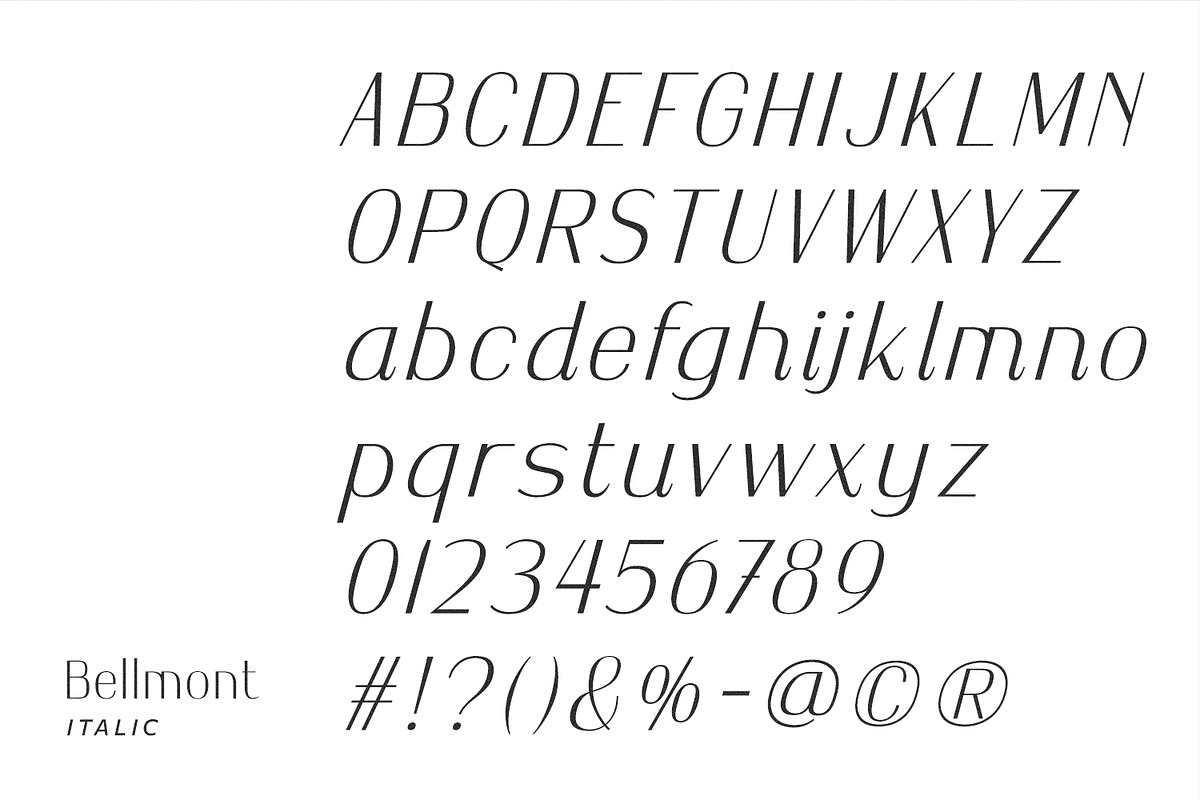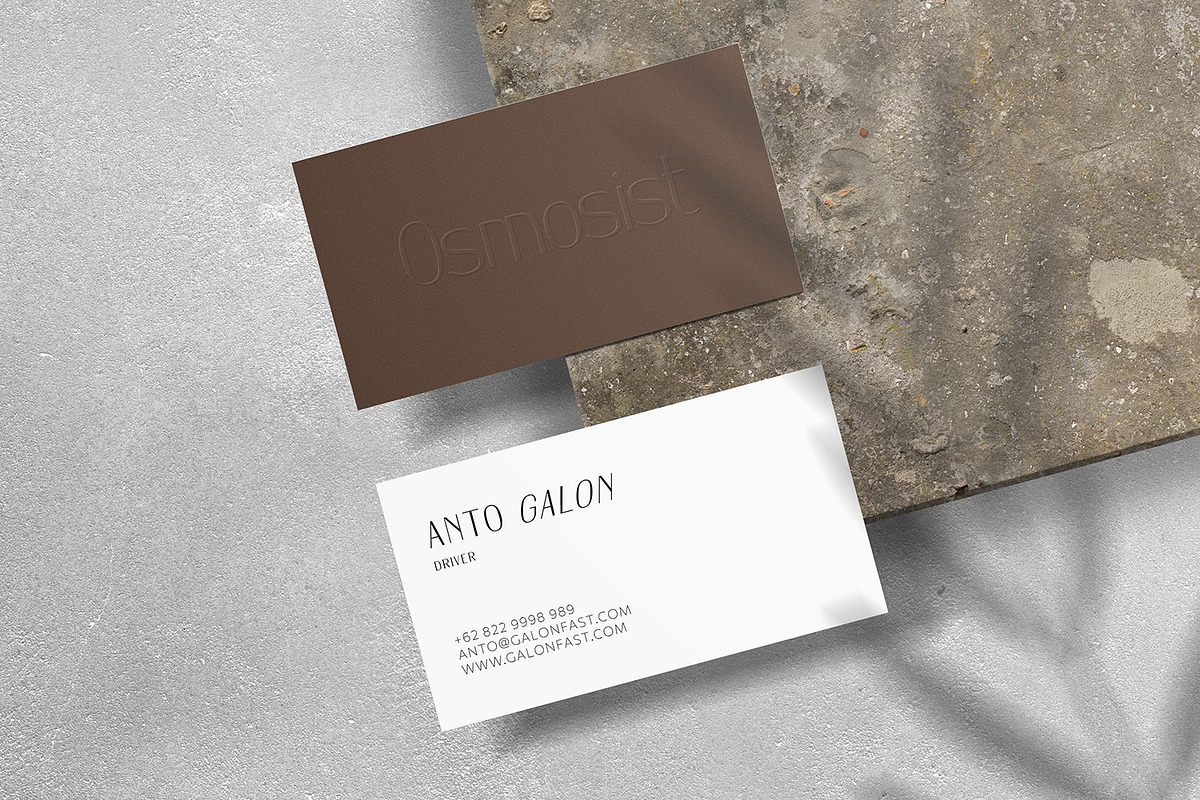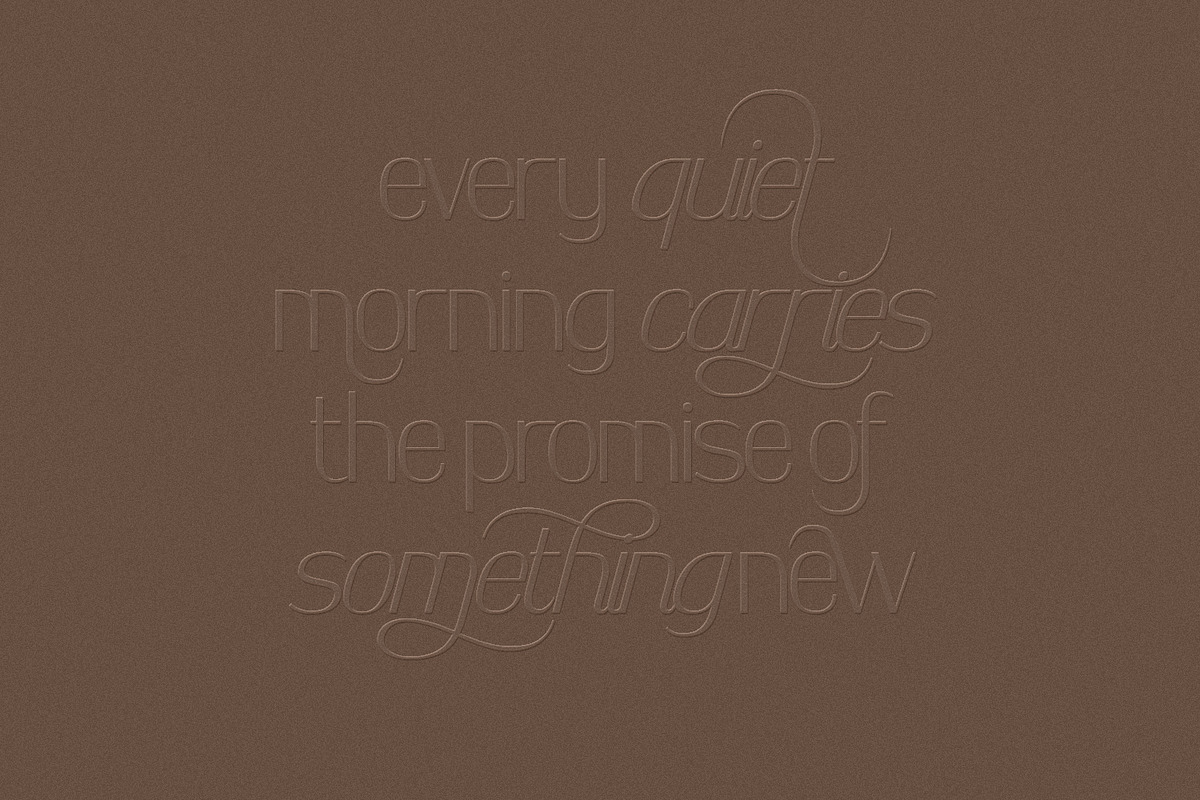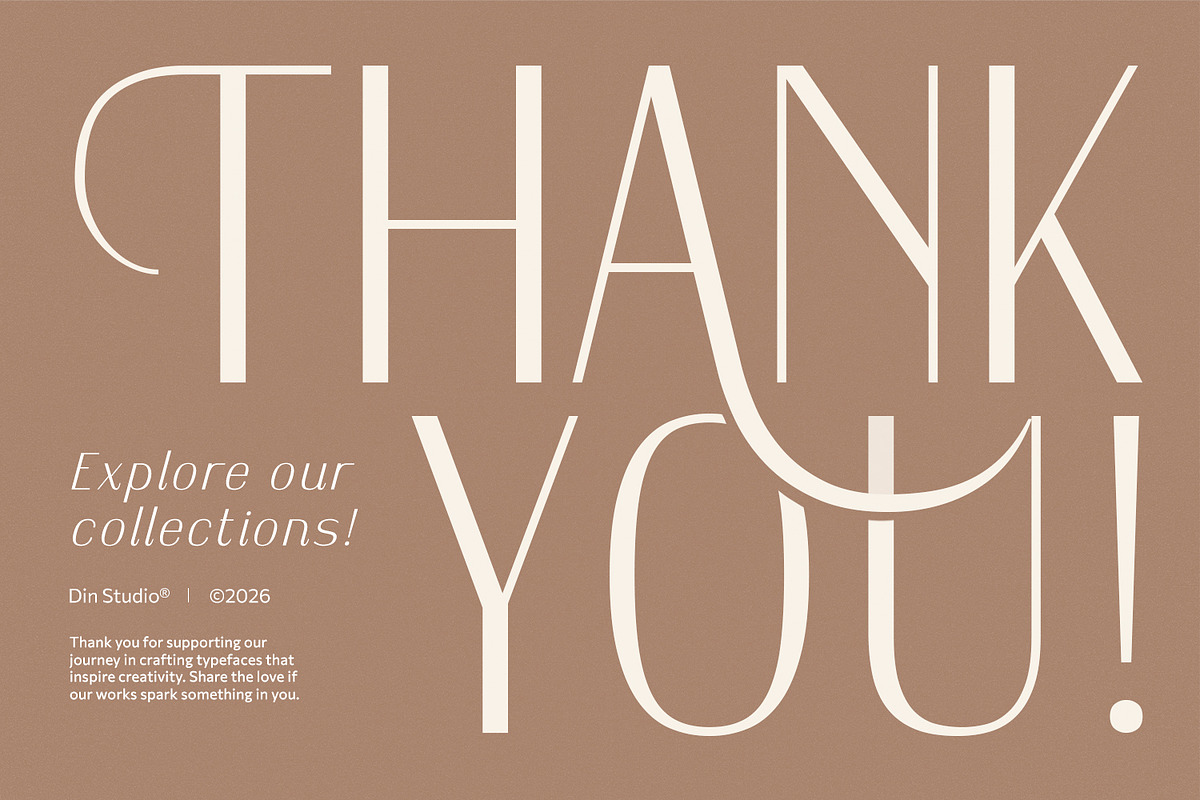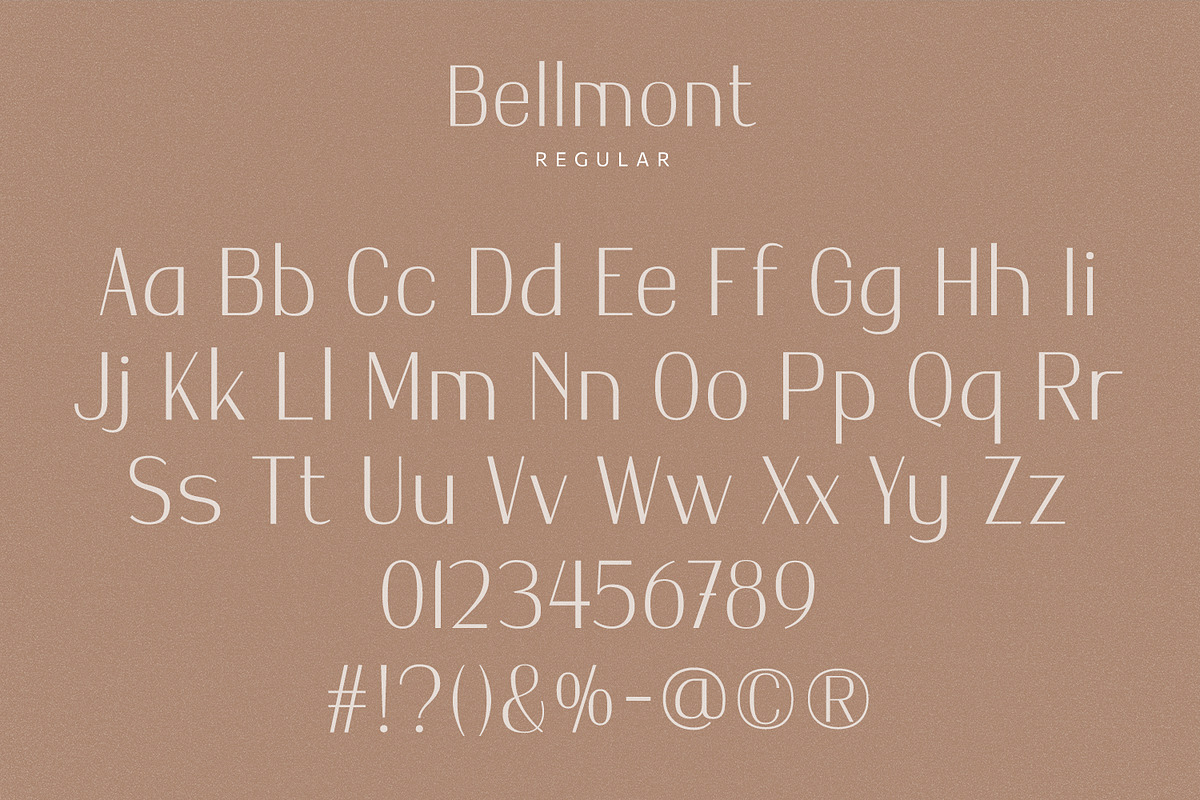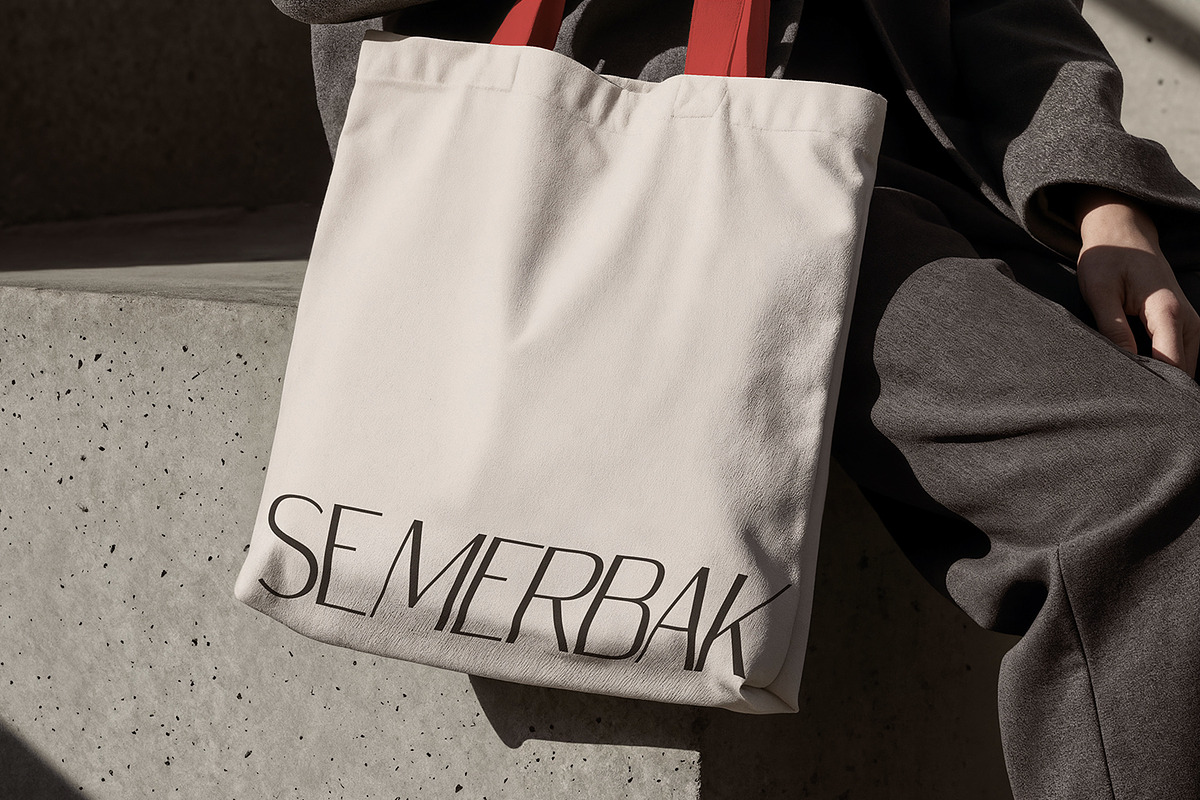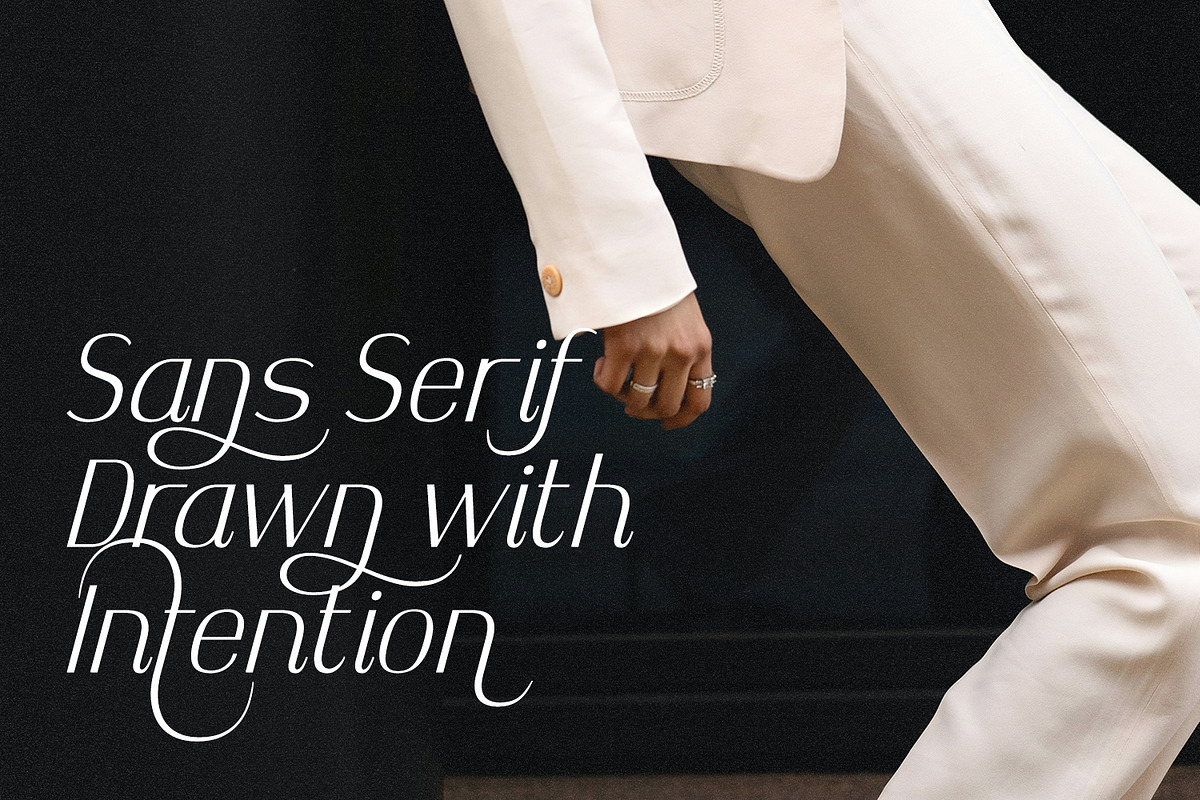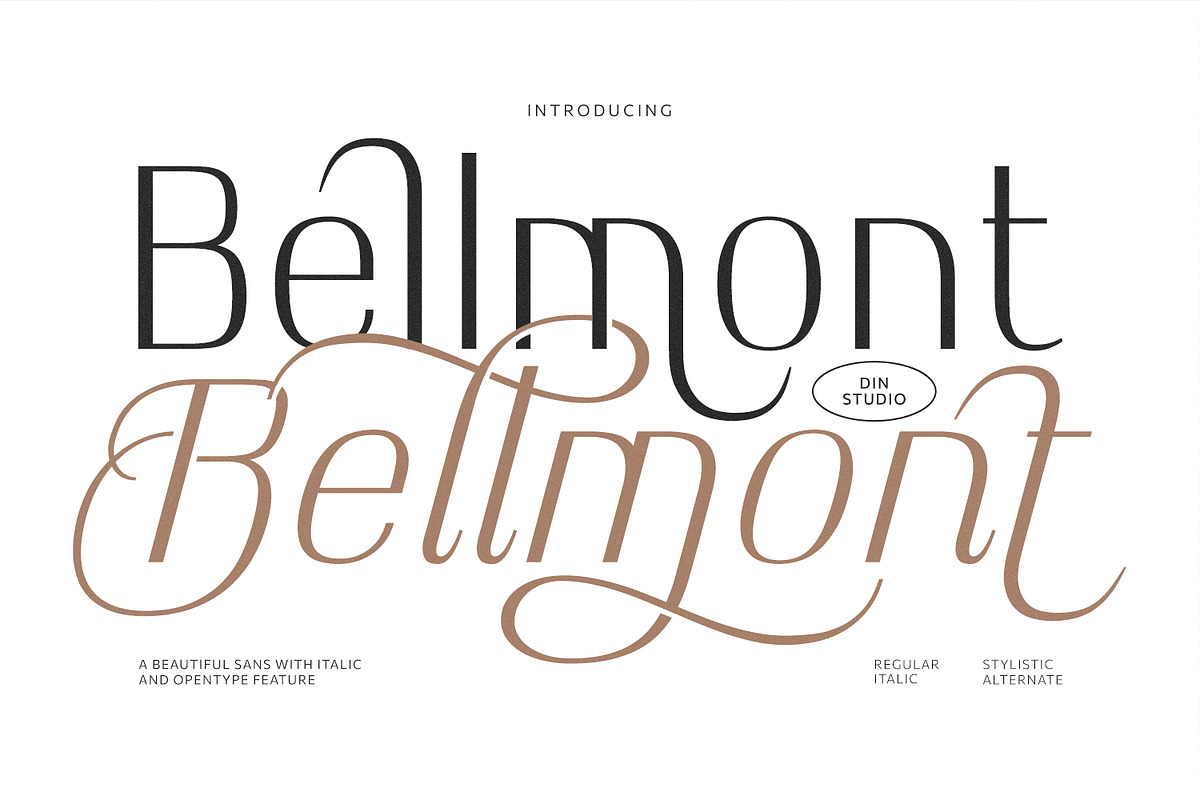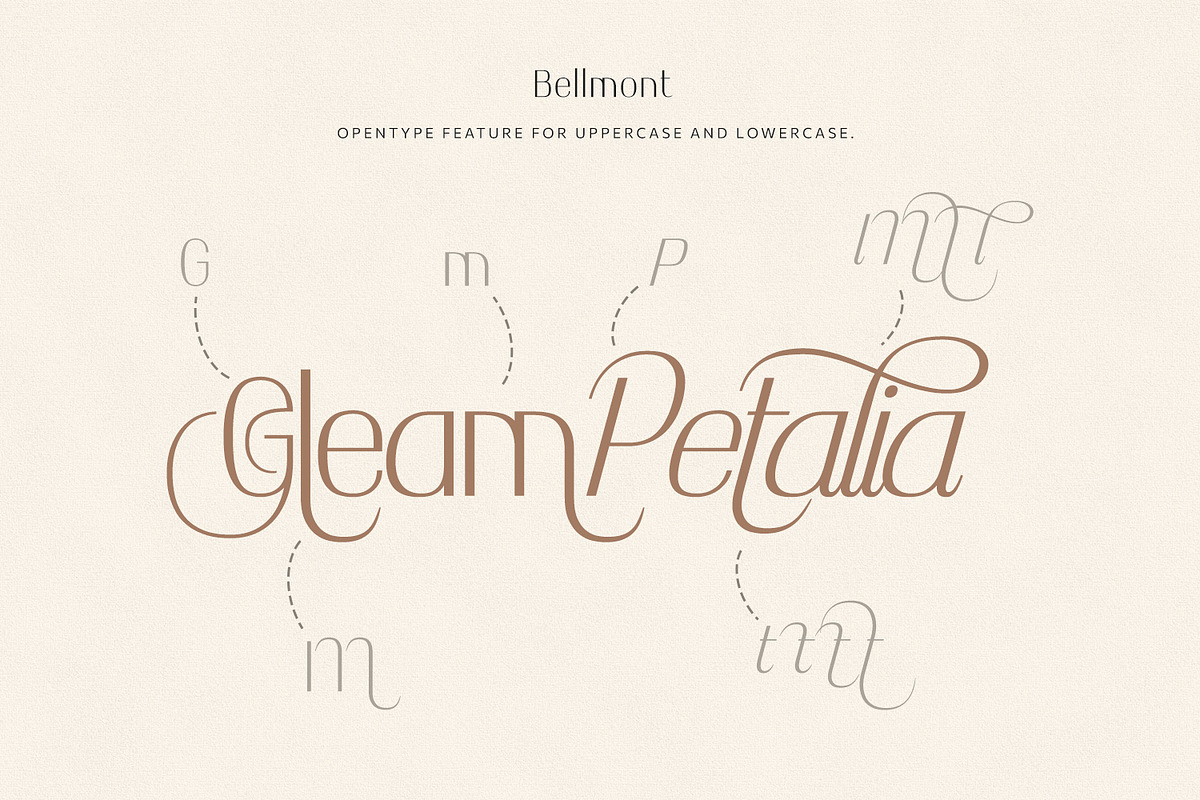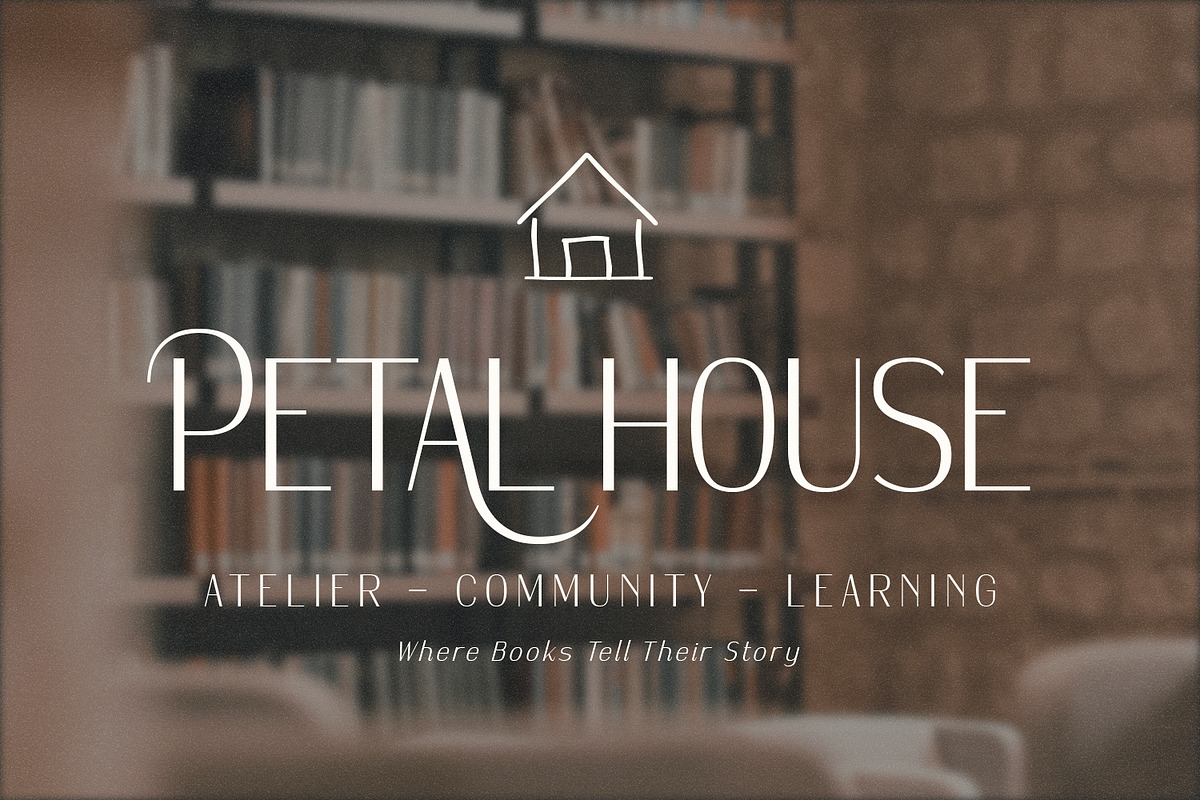
Bellmont
Bellmont is an elegant sans serif font designed with a refined thin weight. With its clean lines, graceful proportions, and minimalist aesthetic, Bellmont delivers a polished typographic style that feels both contemporary and timeless. One of Bellmont’s defining characteristics is its beautifully designed italic version, which adds a smooth sense of movement and elegance to the typeface. The italic style complements the upright form perfectly, offering versatility for creating stylish designs. In addition, enjoy the features here.
Stylistic Set
Multilingual Supports
Numerals and Punctuations
Bellmont fits in logos, quotes, name cards, branding, posters, and many more designs. Find out more ways to use this font by taking a look at the font preview.